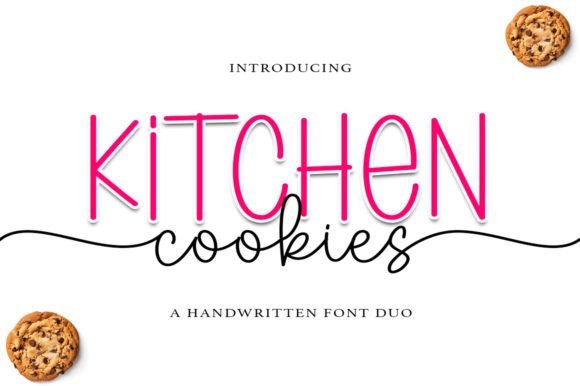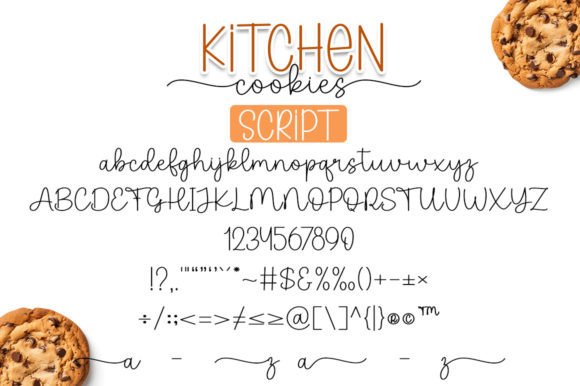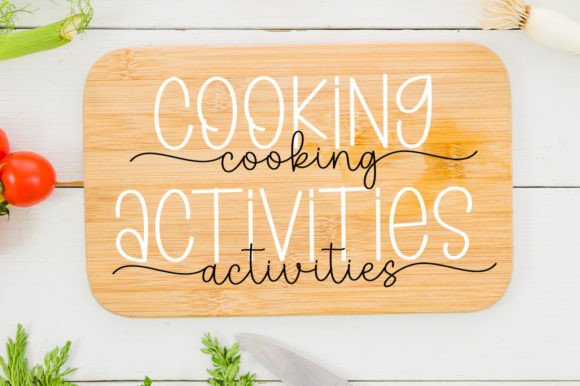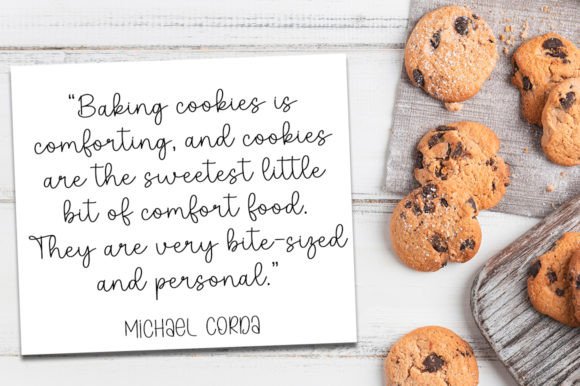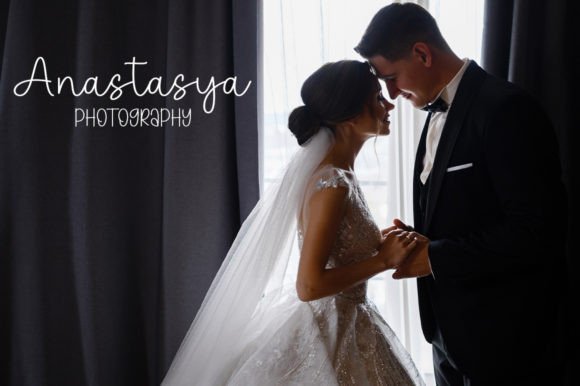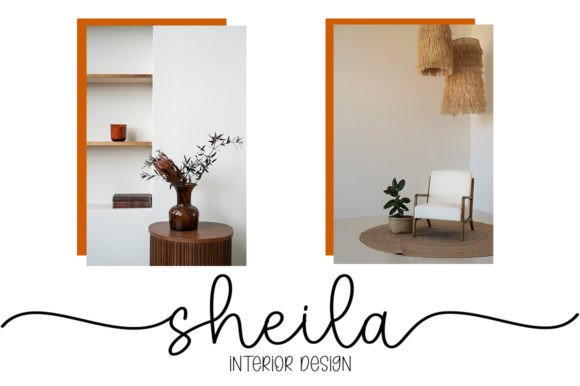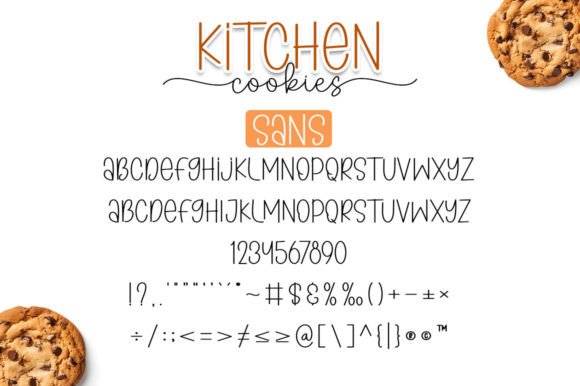
Adding a Pinch of Whimsy to Your Designs
Have you ever found yourself rummaging through your font collection, searching for the perfect match to elevate your creative project? Maybe you’re crafting a heartfelt birthday card for a loved one, or designing a romantic wedding invitation that screams elegance. Whatever the case may be, you’ll want to make sure your chosen font conveys the right emotions and sets the tone for a truly special occasion.
Enter the enchanting Kitchen Cookies Duo Font, a delicate duo font that combines the sophistication of a sans serif with the elegance of a script. This versatile font is designed to add a touch of romance to your creations, making it perfect for a wide range of applications, from greeting cards to headlines. With its PUA encoding, accessing all the glyphs and ligatures is a breeze, allowing you to unleash your creativity and bring your vision to life.
Kitchen Cookies Duo Font Key Features
- Font Family: Kitchen Cookies Duo, a playful and whimsical font duo consisting of two weights.
- Unique Characteristics: The font duo features hand-drawn illustrations of cookies, making it perfect for bakeries, food brands, and other related businesses.
Kitchen Cookies Duo Font Review
When I first laid eyes on the Kitchen Cookies Duo Font, I was immediately drawn to its playful and whimsical vibe. ✨ The font has a clear, modern aesthetic with a warm, inviting feel that’s perfect for food-related branding and packaging. The two distinct styles within the duo – “Cookies” and “Duo” – work well together, offering a range of possibilities for creative applications.
The “Cookies” style is great for creating a sense of nostalgia and comfort, while the “Duo” style adds a modern twist and flexibility. ✨ The font’s versatility makes it an excellent choice for bakeries, cafes, and other food establishments looking to create a consistent brand identity.
While the Kitchen Cookies Duo Font excels in many areas, there are a few limitations to consider:
- ⚠️ Limited character set and language support: The font may not be suitable for multilingual projects or applications requiring a wide range of characters.
- ⚠️ Limited scalability: The font may not look its best when used at very small or very large sizes, which could impact its overall readability.
The Kitchen Cookies Duo Font is a charming and versatile choice for food-related branding and design projects. While it may have some limitations, its unique character and modern aesthetic make it a standout option for creatives looking to add a touch of whimsy and personality to their work.
- Avoid using the font for large blocks of text, as it is best suited for headlines and titles.
- Cookbooks and recipe websites.
- Bakery and restaurant menus.